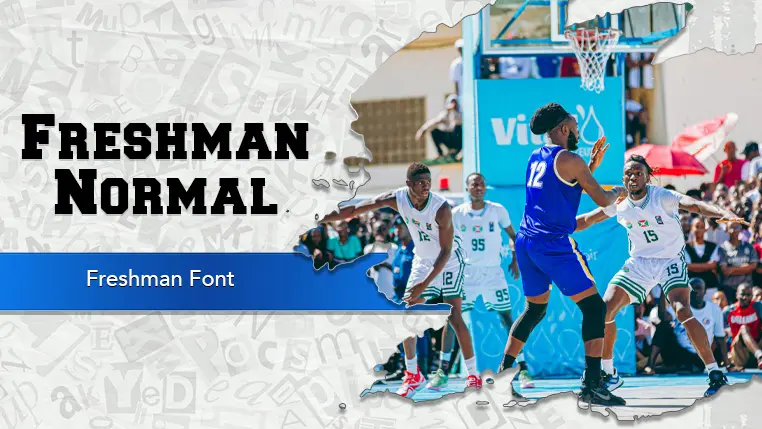
The Freshman font family may be ideal for you if you enjoy working on an artistic design project. The lively, expressive look of this typeface, which was created by William Boyd, makes it ideal for Sports and Team Branding. The font works well for university branding, flyers for school events, or any project with a scholastic theme. Its bold, highly readable letters make it excellent for headlines and titles on posters, banners, and other designs that need to grab attention from a distance. The font's clean lines and classic look are ideal for screen printing on clothing, making it a popular choice for school spirit wear or branded apparel. and other light-hearted visual projects.
Normal are the one primary font styles of the Freshman font family. You may build dynamic, visually appealing text layouts with the distinct flair that each style offers. With crisp, readable lines and a relaxed tone.